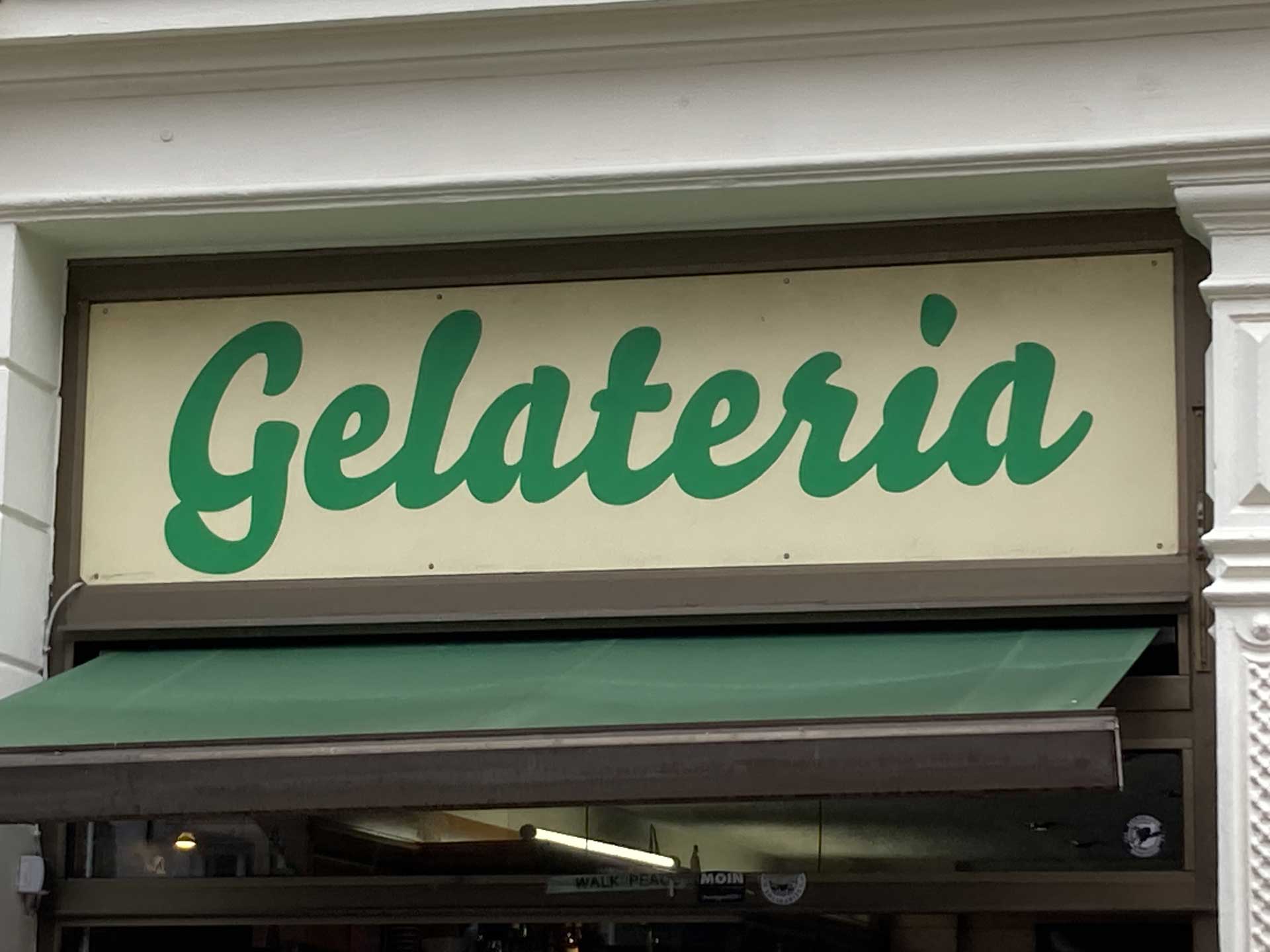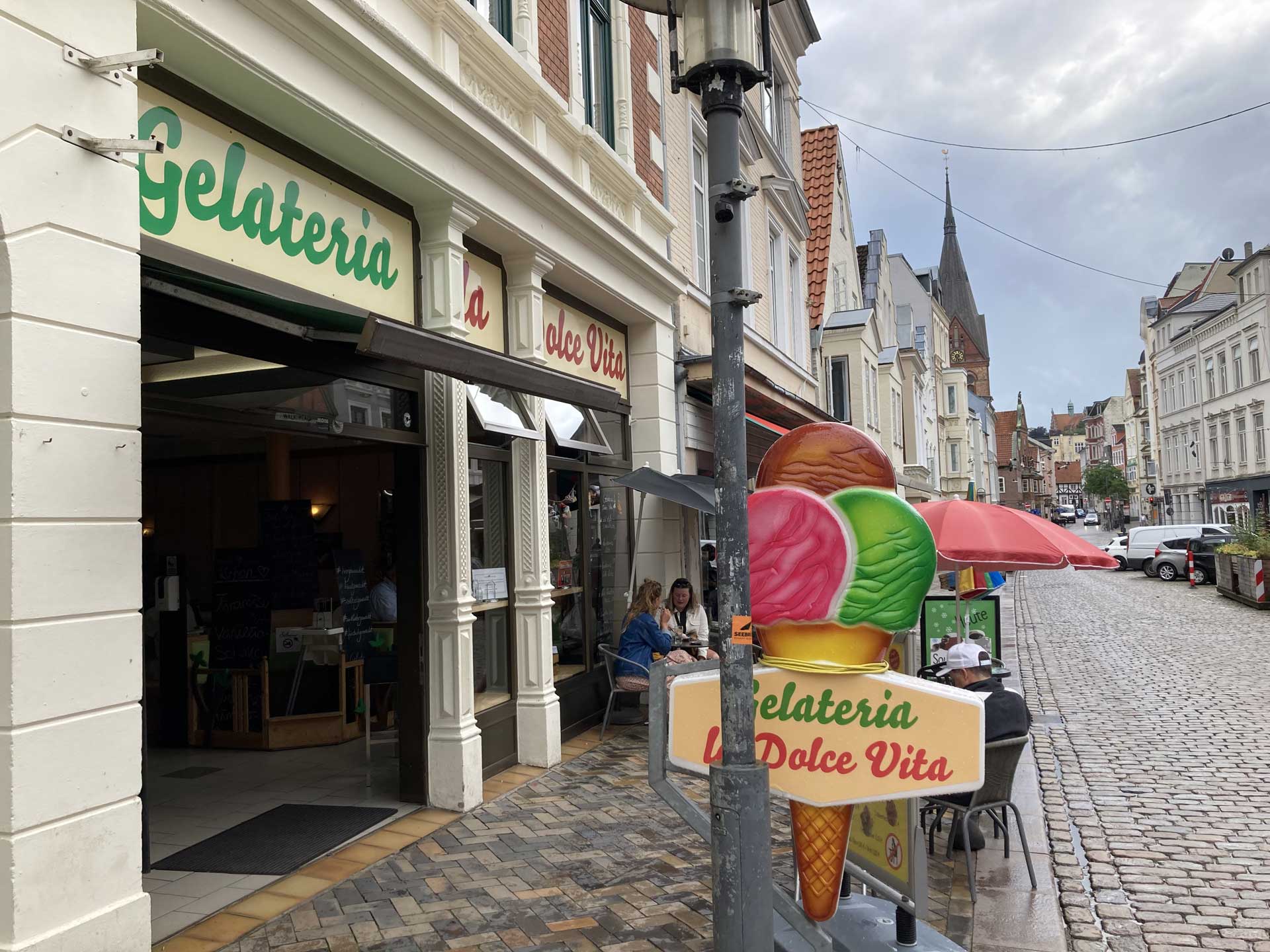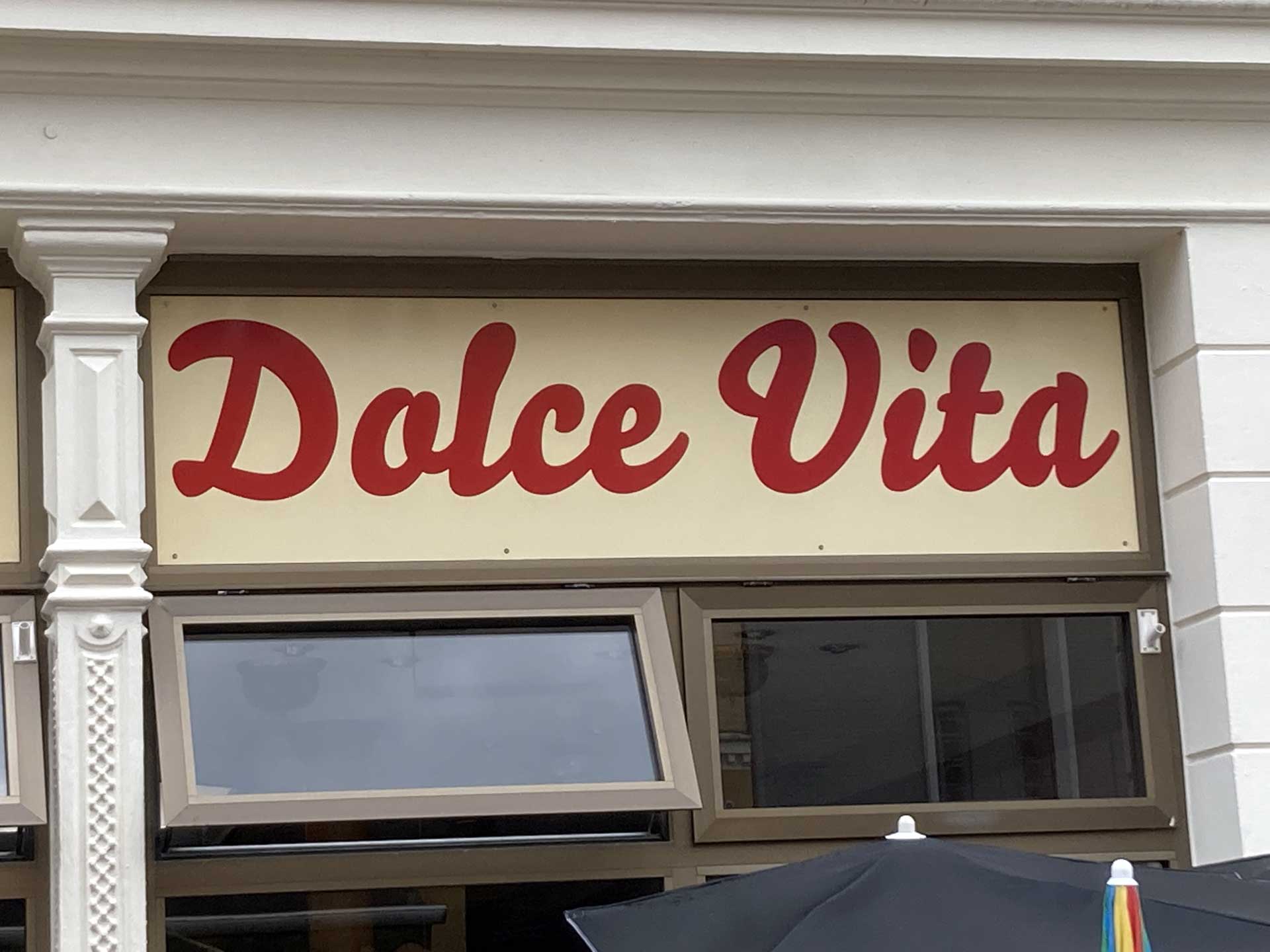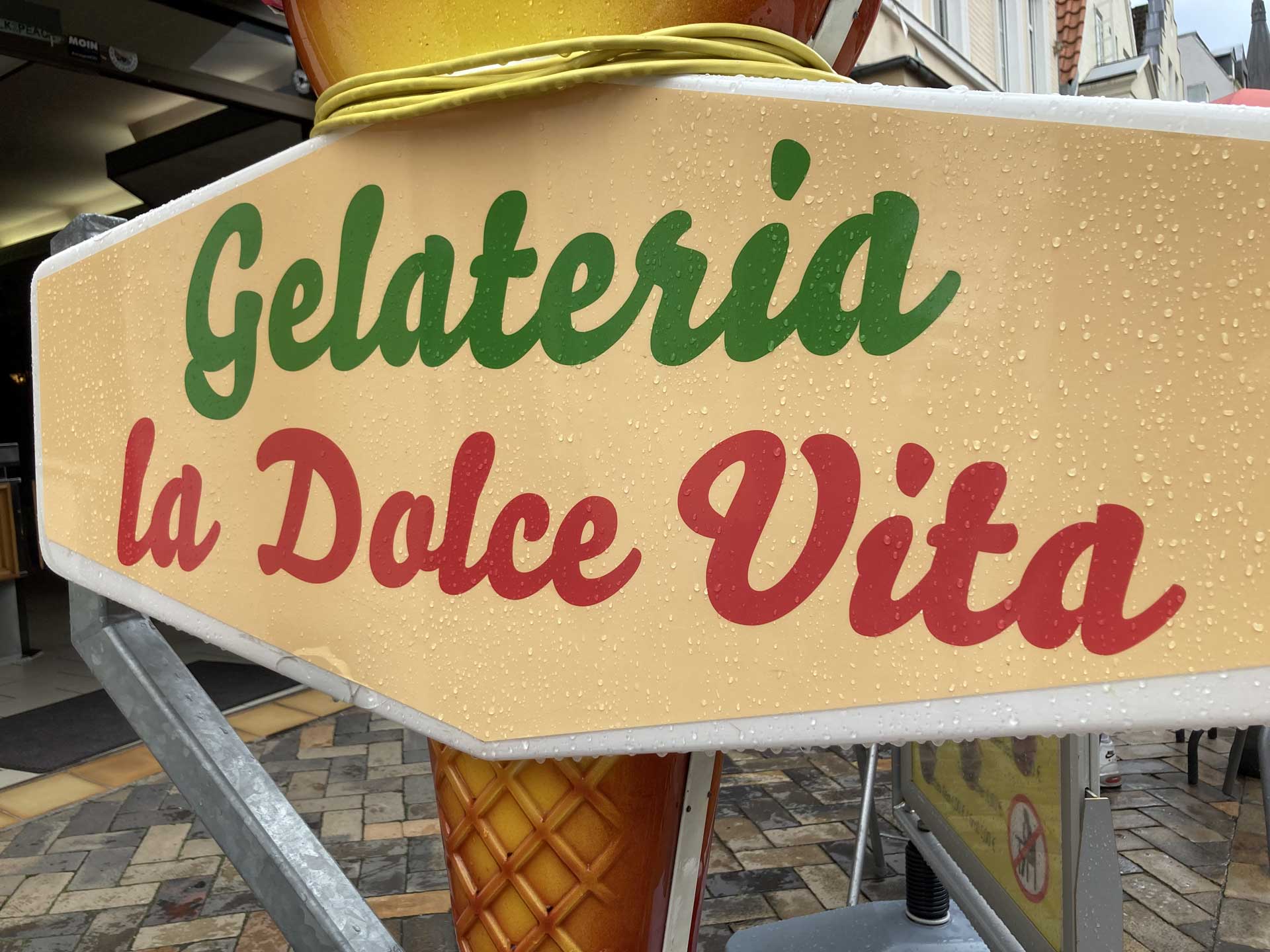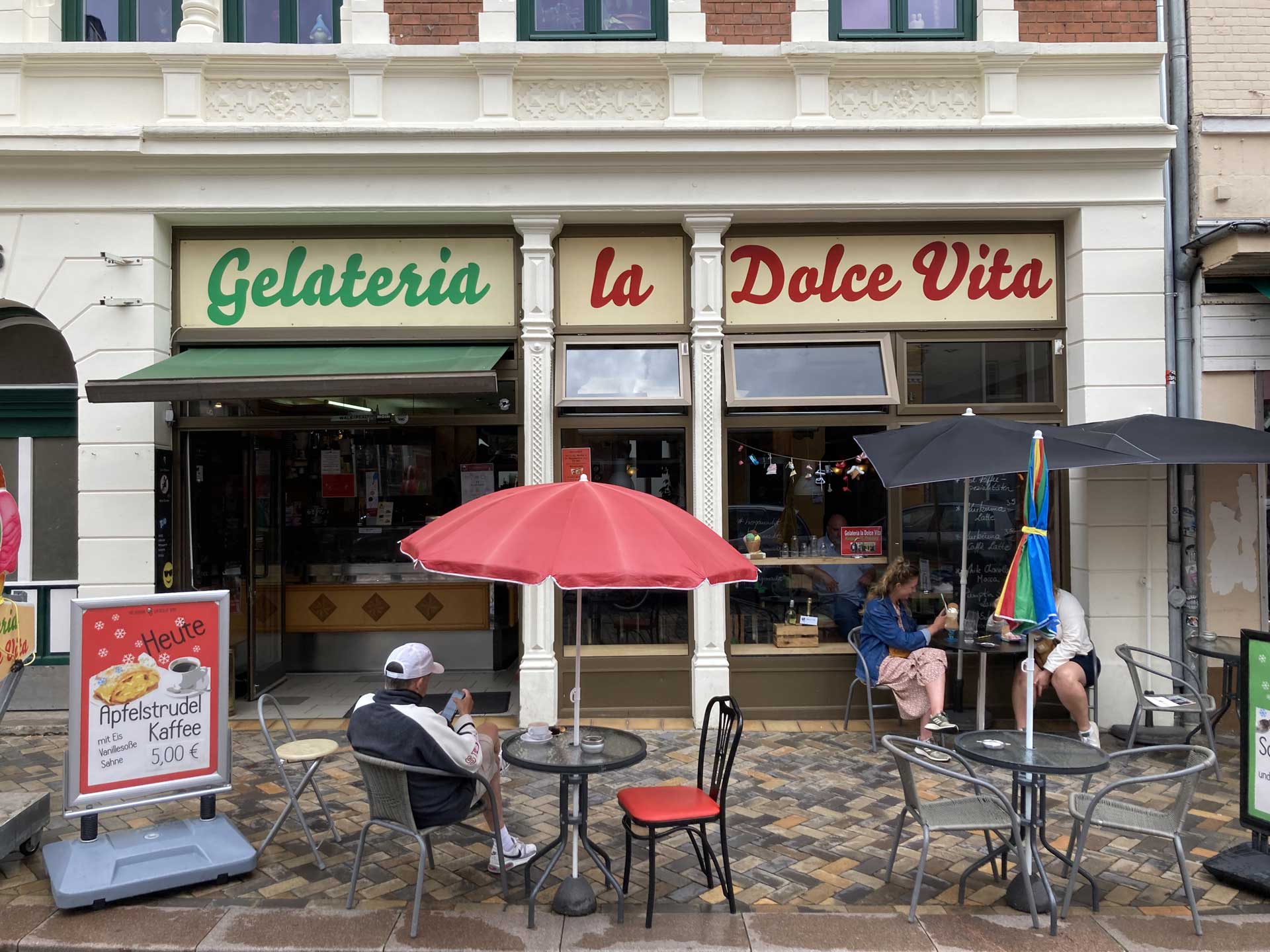
This ice cream shop in Flensburg (Germany) was lucky that its name matches exactly with the division of its facade. And besides, it shows once again that Bello is a good fit for ice cream shops.
Gelateria la Dolce Vita